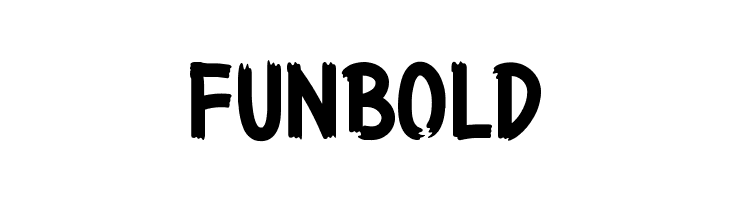
( Fonts by Des Gomez )
A playful, hand-drawn font with tall, narrow letters and a whimsical style.
A bold, elegant script font with flowing curves and intricate loops.
A playful handwritten font with smooth curves and a casual style.
A sleek, thin, italic font with a modern and elegant design.
A playful, casual handwritten font with dynamic strokes and a personal touch.
A bold, rounded font with a strong, uniform presence.